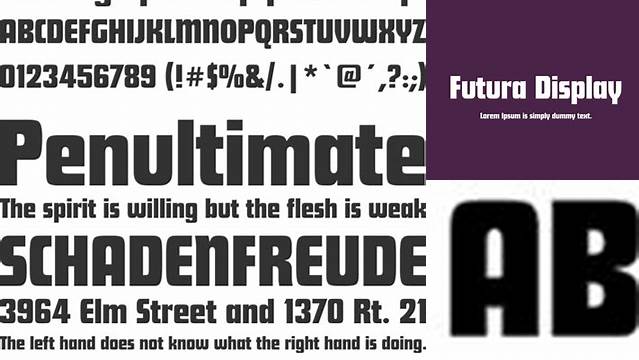
Futura ND Display: Free Font Guide & Usage Tips
Are you on the hunt for a futuristic and clean font? Well, look no further! The Futura ND Display Regular free font might just be the perfect addition to your design arsenal. In this article, we'll dive deep into what makes this font so special, where you can find it for free, and how to best utilize it in your projects. So, buckle up, font enthusiasts, and let's get started!
What is Futura ND Display Regular?
Let's talk about the distinctive qualities of Futura ND Display Regular. Futura ND Display Regular is a sans-serif typeface that exudes modernity and simplicity. Originally designed by Paul Renner in 1927, Futura has become a classic choice for designers worldwide. The "ND" in Futura ND refers to a specific version or adaptation of the original Futura font. The "Display" designation indicates that this particular style is optimized for use in larger sizes, such as headlines, posters, and other prominent display applications. This font is characterized by its geometric shapes, clean lines, and even strokes, making it incredibly legible and visually appealing. One of the key features of Futura ND Display Regular is its versatility. It works well in both print and digital media, making it a go-to option for various design projects. Whether you're creating a sleek website, a professional brochure, or eye-catching marketing materials, Futura ND Display Regular can deliver a polished and contemporary look. Its neutral appearance also means it pairs well with a wide range of other fonts, giving you plenty of creative freedom. The font's geometric construction lends it a sense of order and precision, which can be particularly effective in conveying messages of clarity and trustworthiness. In branding, this can translate to a brand identity that feels modern, reliable, and forward-thinking. Furthermore, Futura ND Display Regular's clean design ensures that it remains legible even at smaller sizes, although it truly shines when used in larger formats. This makes it an excellent choice for headlines, titles, and other prominent text elements that need to grab attention and make a strong visual impact. Its balanced letterforms and consistent stroke weight contribute to a harmonious reading experience, ensuring that your message is conveyed clearly and effectively.
Why Choose Futura ND Display Regular?
When it comes to font selection, the choices can be overwhelming. So, why should you pick Futura ND Display Regular over the myriad of other options available? The answer lies in its unique blend of classic design principles and modern appeal. First and foremost, Futura ND Display Regular offers exceptional legibility. Its clean, geometric shapes and even strokes make it easy to read, even at a distance. This is crucial for display purposes, where the font needs to capture attention and convey information quickly. Whether it's a billboard, a website header, or a poster, Futura ND Display Regular ensures that your message is clear and impactful. Secondly, this font exudes a sense of timeless elegance. While it has a distinctly modern feel, its roots trace back to the early 20th century, giving it a classic touch that never goes out of style. This makes it a safe yet stylish choice for projects that require a balance of contemporary and traditional aesthetics. Think of brands that want to project an image of innovation combined with reliability – Futura ND Display Regular fits the bill perfectly. Another compelling reason to choose Futura ND Display Regular is its versatility. It pairs well with a wide range of other fonts, allowing you to create diverse and visually interesting designs. You can combine it with a serif font for a touch of contrast, or use it alongside another sans-serif for a cohesive, modern look. The possibilities are endless, making it a valuable asset in any designer's toolkit. Moreover, Futura ND Display Regular is often available as a free font, making it accessible to designers of all levels. This is particularly beneficial for students, freelancers, and small businesses who may have limited budgets. The availability of a high-quality font like Futura ND Display Regular can significantly enhance the visual appeal of their projects without breaking the bank. Finally, Futura ND Display Regular offers a professional and polished look that can elevate any design. Its clean lines and balanced proportions convey a sense of sophistication and attention to detail, which can be crucial for building trust and credibility with your audience. Whether you're designing a corporate website, a marketing campaign, or a personal project, Futura ND Display Regular can help you achieve a refined and impactful visual identity.
How to Use Futura ND Display Regular in Your Projects
Alright, you've got your hands on Futura ND Display Regular – awesome! Now, let's talk about how to use this fantastic font effectively in your design projects. The key to success with any font lies in understanding its strengths and weaknesses and applying it in a way that enhances your overall design. First, consider the context of your project. Futura ND Display Regular shines in display settings, such as headlines, titles, and logos. Its clean lines and geometric shapes make it highly legible and visually appealing, perfect for grabbing attention. However, it may not be the best choice for large blocks of body text, as its even strokes can become monotonous and tiring to read over extended periods. When using Futura ND Display Regular in headlines, experiment with different sizes and weights to create visual hierarchy. Use a larger size for the main headline and smaller sizes for subheadings and supporting text. This will help guide the reader's eye and create a clear flow of information. Pair Futura ND Display Regular with other fonts to create contrast and visual interest. A classic combination is to use Futura ND Display Regular for headlines and a serif font like Times New Roman or Georgia for body text. This creates a harmonious balance between modern and traditional styles. In logo design, Futura ND Display Regular can convey a sense of modernity, sophistication, and trustworthiness. Its clean lines and geometric shapes make it ideal for brands that want to project an image of innovation and reliability. Experiment with different letter combinations and spacing to create a unique and memorable logo. Pay attention to the color palette you use with Futura ND Display Regular. Its neutral appearance means it works well with a wide range of colors, but certain combinations can enhance its impact. For example, using Futura ND Display Regular in white against a dark background can create a striking and modern look. Consider the overall tone and style of your project when using Futura ND Display Regular. It's a versatile font that can be adapted to suit a variety of design styles, but it's important to ensure that it aligns with your overall message and branding. Whether you're designing a website, a poster, or a brochure, Futura ND Display Regular can help you achieve a professional and polished look. By understanding its strengths and weaknesses and applying it thoughtfully, you can create visually stunning designs that stand out from the crowd.
Examples of Great Designs Using Futura ND Display Regular
To truly appreciate the versatility and impact of Futura ND Display Regular, let's take a look at some real-world examples of great designs that utilize this font effectively. By examining these examples, you can gain inspiration and insights into how to incorporate Futura ND Display Regular into your own projects. One of the most iconic examples of Futura's use is in the branding of IKEA. The Swedish furniture giant has long used Futura as its primary typeface, conveying a sense of simplicity, functionality, and modernity. The clean lines and geometric shapes of Futura align perfectly with IKEA's design philosophy, creating a cohesive and recognizable brand identity. Another notable example is the logo of Supreme, the popular streetwear brand. While Supreme's logo is a simple red box with the word "Supreme" in white, the choice of Futura Bold as the typeface gives it a sense of boldness, confidence, and urban cool. The font's clean lines and strong presence make it instantly recognizable and impactful. Futura has also been used extensively in the design of movie posters. Its legibility and modern aesthetic make it an excellent choice for conveying information quickly and effectively. Movie posters for films like "Gravity" and "V for Vendetta" have utilized Futura to create a sense of tension, excitement, and visual appeal. In the world of print design, Futura has been used in a wide range of applications, from magazines and books to brochures and advertisements. Its versatility and legibility make it a reliable choice for conveying information clearly and effectively. Magazines like Vogue and GQ have used Futura in their layouts, creating a sense of sophistication and style. Websites also benefit greatly from the use of Futura. Its clean lines and geometric shapes make it easy to read on screens, while its modern aesthetic can enhance the overall user experience. Many tech companies and startups use Futura in their website designs, conveying a sense of innovation and forward-thinking. These examples demonstrate the wide range of applications for Futura ND Display Regular. Whether you're designing a logo, a poster, a website, or a magazine, Futura can help you achieve a professional and visually appealing result. By studying these examples and understanding the principles behind their success, you can learn how to use Futura effectively in your own projects.
Tips and Tricks for Working with Futura ND Display Regular
Okay, design enthusiasts, let's dive into some insider tips and tricks for working with Futura ND Display Regular to really make your designs pop! These little nuggets of wisdom can help you maximize the impact of this fantastic font and avoid common pitfalls. First off, kerning is your best friend. Futura, with its geometric shapes, can sometimes look a bit awkward if the spacing between letters isn't just right. Pay close attention to the kerning, especially in headlines and logos. Adjusting the spacing manually can make a huge difference in the overall appearance. Leading, or line-height, is another crucial element to consider. Since Futura ND Display Regular is often used in display settings, you'll want to ensure that the leading is appropriate for the size of the font. Too little leading can make the text look cramped, while too much can make it feel disconnected. Experiment with different leading values to find the sweet spot. Contrast is key. While Futura ND Display Regular is a versatile font, it can sometimes feel a bit sterile on its own. To add visual interest, pair it with other fonts that offer a contrasting style. A classic combination is to use Futura for headlines and a serif font for body text. This creates a nice balance between modern and traditional aesthetics. Don't be afraid to experiment with different weights and styles. Futura comes in a variety of weights, from light to bold, each with its own unique character. Using different weights can help you create visual hierarchy and add emphasis to certain elements of your design. Consider using Futura ND Display Regular in unexpected ways. While it's often used for headlines and logos, it can also be effective in other applications, such as captions, pull quotes, and infographics. Think outside the box and see where your creativity takes you. Pay attention to the details. Small details like the color, size, and placement of your text can have a big impact on the overall design. Take the time to fine-tune these elements to ensure that everything is working together harmoniously. Get inspired by others. Look at examples of great designs that use Futura ND Display Regular and see how they've used it effectively. Don't be afraid to borrow ideas and adapt them to your own projects. By following these tips and tricks, you can unlock the full potential of Futura ND Display Regular and create visually stunning designs that leave a lasting impression.
So, there you have it, a comprehensive guide to Futura ND Display Regular free font! From its origins and unique characteristics to where you can find it for free and how to use it effectively, we've covered all the bases. Whether you're a seasoned designer or just starting out, this font is a valuable asset to have in your toolkit. Its timeless elegance, versatility, and legibility make it a go-to choice for a wide range of projects. So go ahead, download Futura ND Display Regular, and start creating amazing designs today! Remember to always check the license agreement before using any font, and have fun experimenting with different styles and combinations. Happy designing!